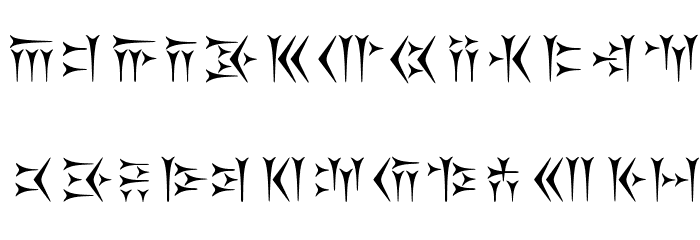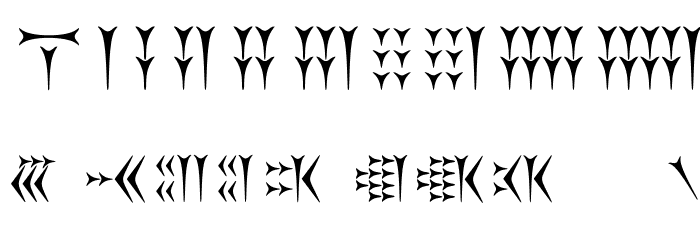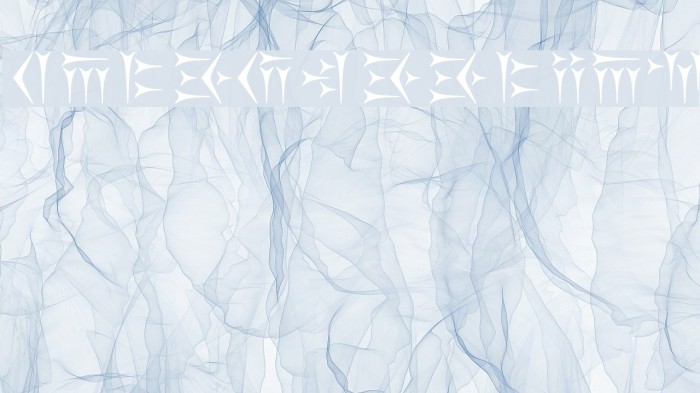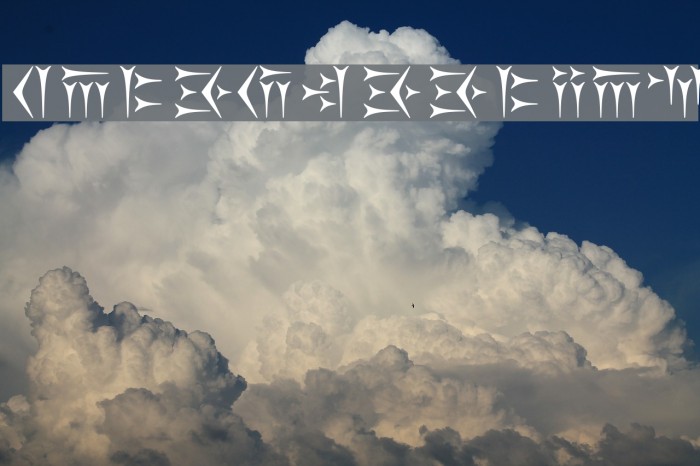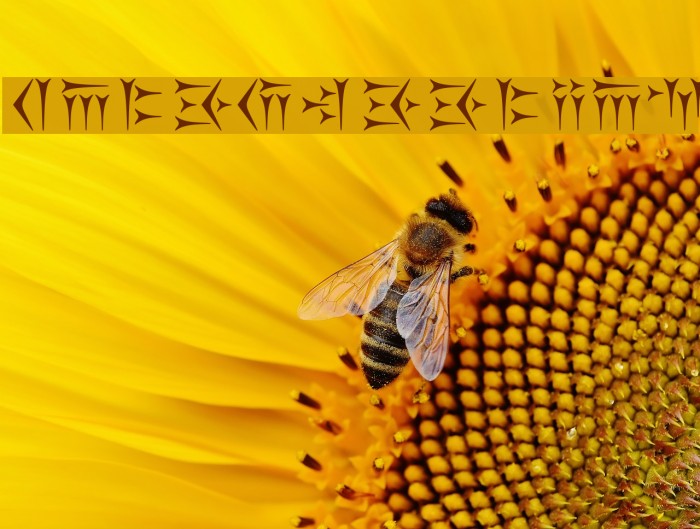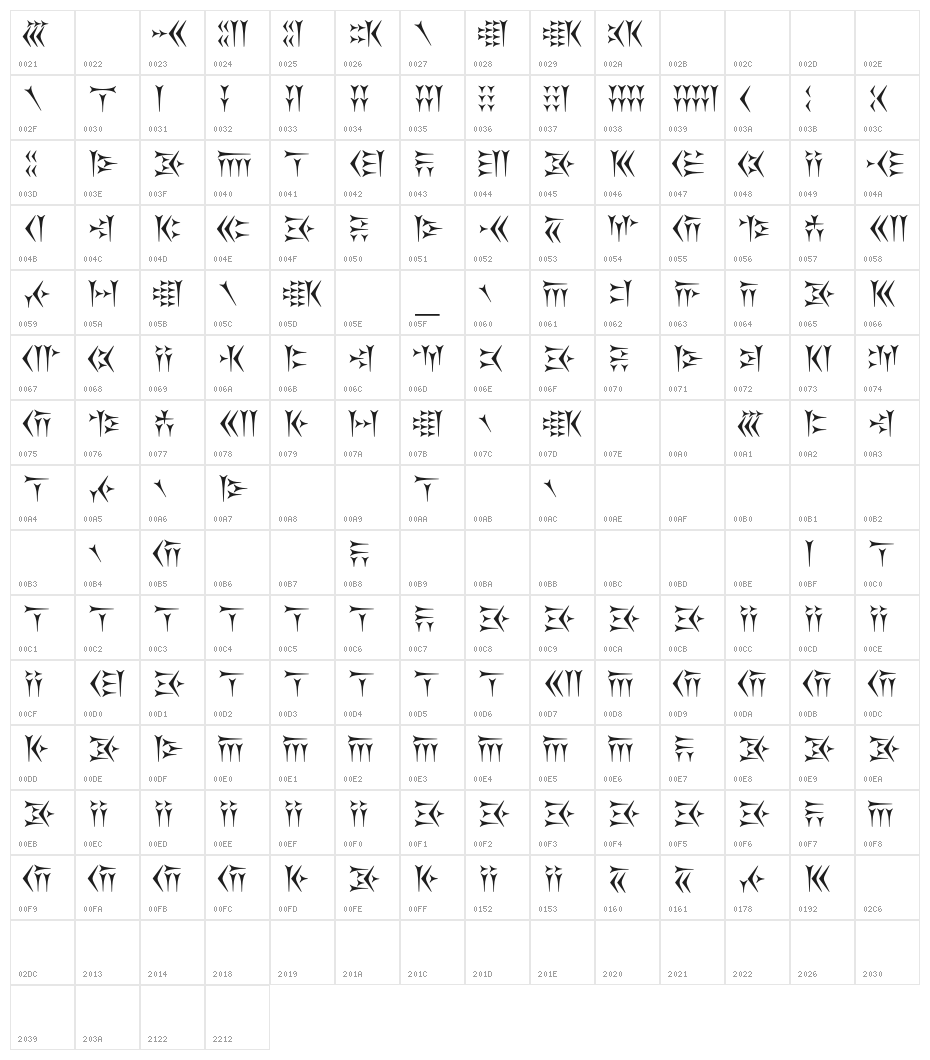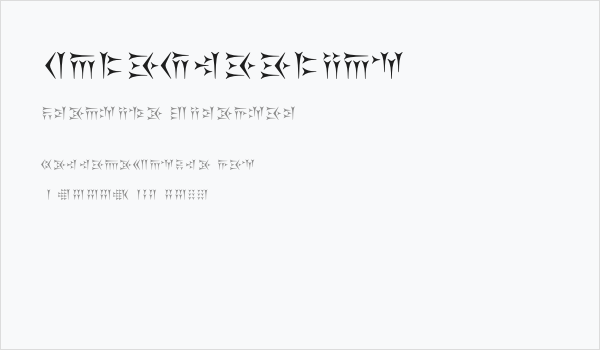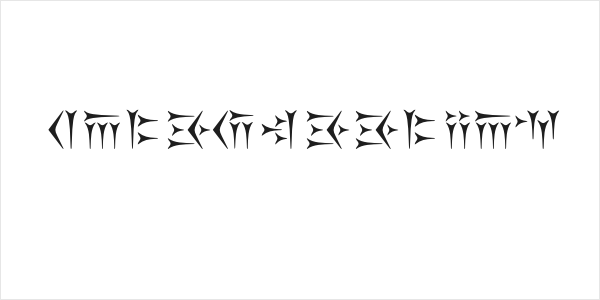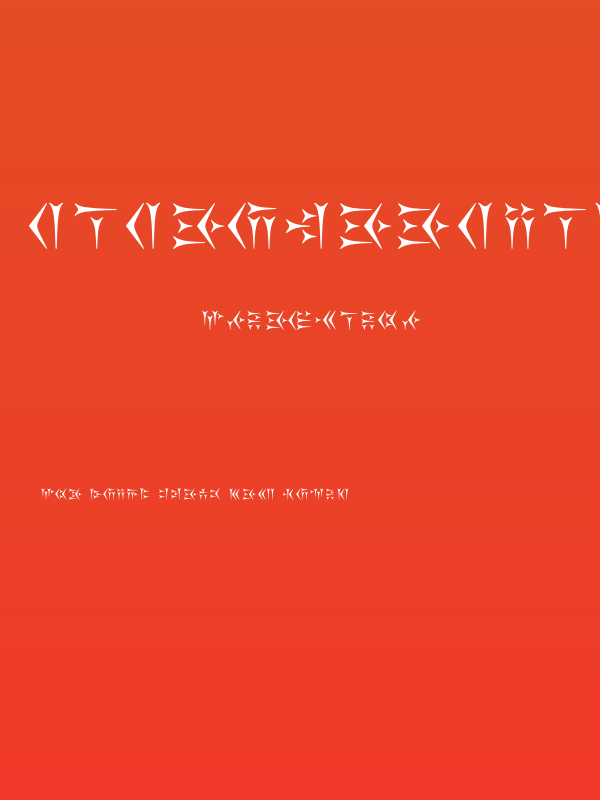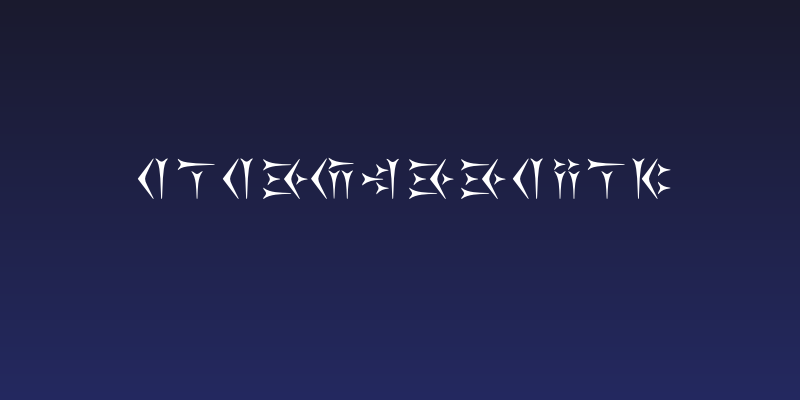
Kakoulookiam Font
This font features an intricate and angular design, reminiscent of ancient scripts or mystical symbols. Each character is composed of sharp, pointed edges and geometric shapes, creating a sense of mystery and otherworldliness. The strokes are bold and consistent, with a high contrast between the thick and thin elements, giving the font a dramatic and striking appearance. The overall style is highly decorative, making it suitable for projects that require a unique and eye-catching typeface. The spacing between characters is tight, enhancing the compact and cohesive look of the text.
An angular, mystical font with sharp edges and high contrast.
- Proposed Projects: Ideal for fantasy-themed designs, game titles, movie posters, or any project seeking a mysterious and ancient aesthetic.
- Character Spacing: Tight